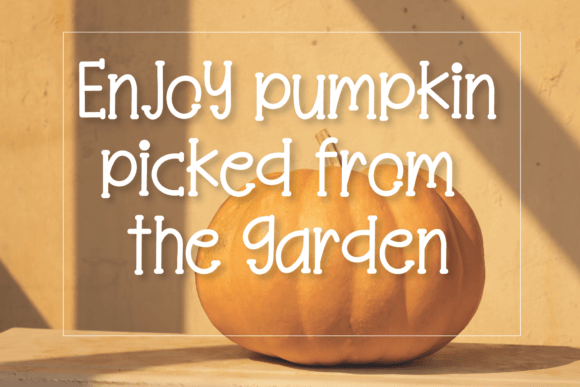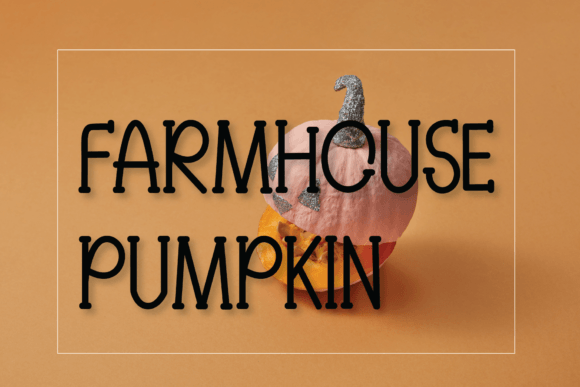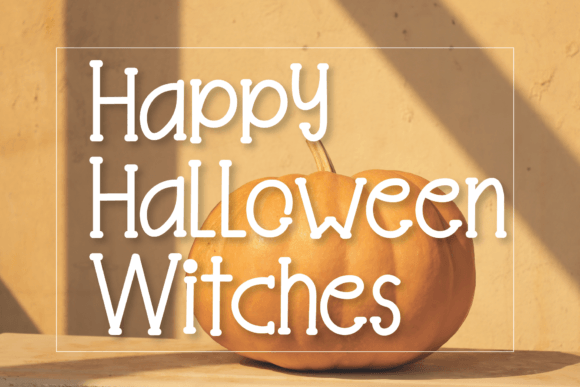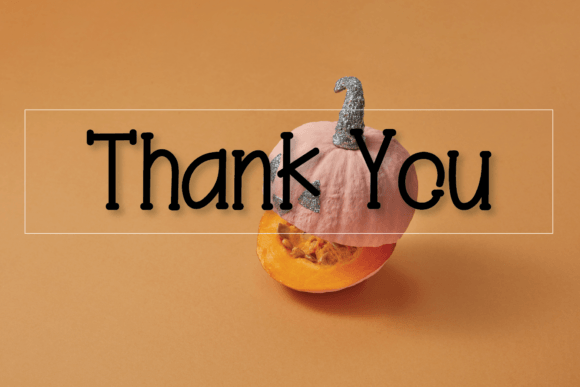
Have you ever been working on a project, and you just can’t seem to find the right font to capture the perfect mood? You scroll through font libraries, trying out different options, but nothing seems quite right. That’s where the Better Pumpkin Font comes in – a simple and cute handwritten font with a modern twist that’s sure to add a touch of whimsy to your designs.
Whether you’re creating greeting cards, business cards, logos, or product packaging, the Better Pumpkin Font is a versatile choice that’s sure to make your designs stand out. And for designers, its value lies in its ability to add a cheerful and approachable touch to any project, making it an ideal choice for a wide range of applications.
Better Pumpkin Font Key Features
- Unique Characteristics: Features a unique blend of modern and vintage elements, making it ideal for designs that require a touch of warmth and sophistication.
Better Pumpkin Font Review
Overall, I think Better Pumpkin Font has some great qualities that make it a nice addition to any project. ✨ Here are a few things that really stand out:
- Playful feel**: The font has a fun, approachable vibe that’s perfect for projects that need a bit of whimsy.
- Good legibility**: The font is easy to read, even at smaller sizes, which is a must for any font.
- Customizable**: The font includes a range of weights and styles, making it easy to customize to fit your project’s needs.
That being said, there are a few limitations that might make it not suitable for every project. ⚠️ Here are a few things to keep in mind:
- Limited language support**: The font may not include the full range of characters and languages that you need.
- No bold or italic variations in every weight**: While the font includes a range of weights and styles, not every weight has a corresponding bold or italic variation.
Overall, I think Better Pumpkin Font is a solid choice for projects that need a playful, approachable feel. With a bit of customization, it can really shine. However, it’s worth keeping an eye out for the limitations mentioned above to make sure it’s the right fit for your project.
For optimal results, use Better Pumpkin Font for titles, headings, and emphasis in your designs. It works well for invitations, posters, and social media graphics.